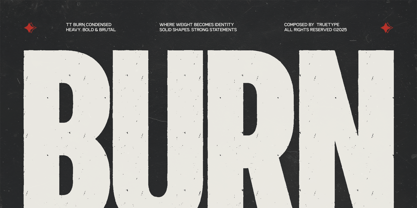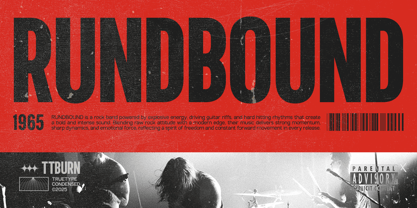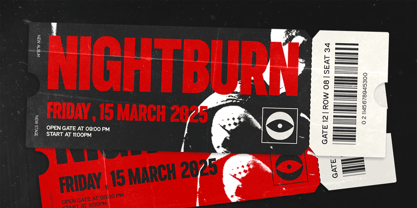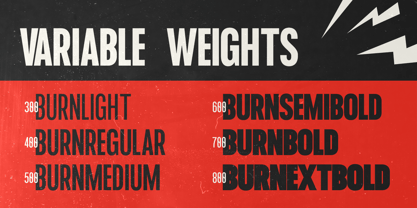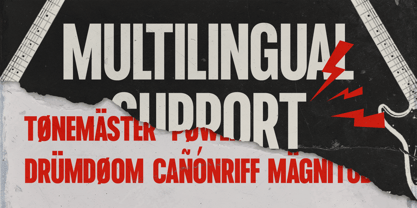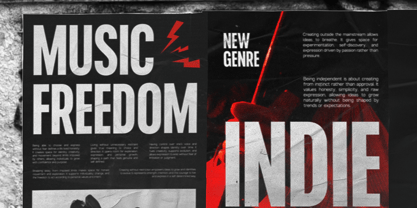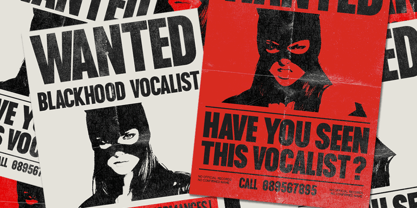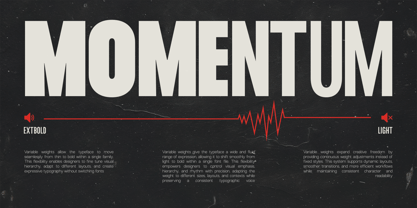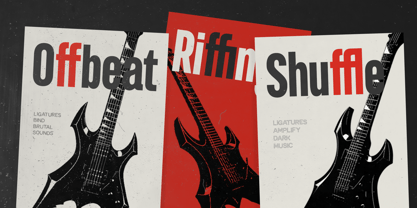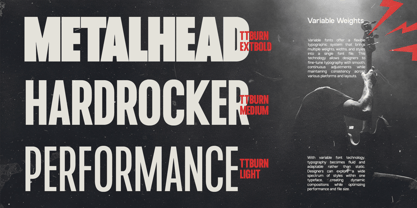
TRT Burn
by True Type Lab
The TRT Burn Font Family was designed by Yusilo Oktaprima Ardani and published by True Type Lab. TRT Burn contains 6 styles and family package options. More about this family
TRT Burn is a modern condensed sans serif typeface designed to deliver strong visual impact, efficiency, and clarity for contemporary design needs. Built with a compact width and confident vertical proportions, Burn is optimized for branding, headlines, and space-conscious layouts that demand presence without excess width. Its condensed construction allows designers to fit more content into tighter spaces while maintaining excellent legibility and a clean, professional appearance. The balanced stroke contrast and refined geometry give TRT Burn a modern, assertive tone that performs consistently across both display and functional text applications. TRT Burn is crafted as a versatile type system for branding, editorial design, advertising, posters, packaging, web interfaces, UI design, and digital products. Whether applied to bold headlines or structured brand systems, TRT Burn delivers a focused, modern, and reliable typographic voice for print and digital environments.
Designers: Yusilo Oktaprima Ardani
Foundry: True Type Lab
TRT Burn